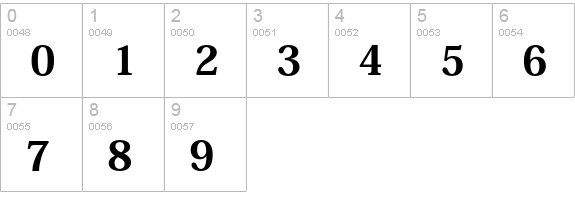
Kozuka Mincho Pr6N H is a classic and elegant serif font that exudes sophistication and readability. With its clean lines and timeless design, this font is perfect for a wide range of design projects, from formal invitations to editorial layouts. The sharp serifs and balanced letterforms give Kozuka Mincho Pr6N H a sense of authority and grace, making it a versatile choice for both print and digital applications. What sets Kozuka Mincho Pr6N H apart is that it is available for free download at FontsMarket.com. This means that you can access this high-quality font without any cost, making it a valuable addition to your font library. Whether you're a designer looking for a reliable serif font or a business professional in need of a polished typeface for your documents, Kozuka Mincho Pr6N H is sure to impress with its impeccable style and accessibility. Download it today and elevate your projects with this exceptional typeface.